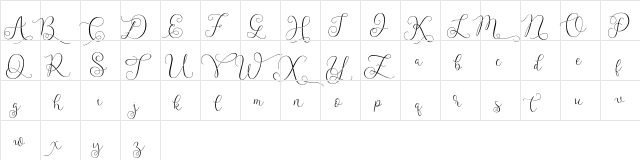
Vaelarmoster Regular
Design Context for Vaelarmoster Typeface
Vaelarmoster is a composed and adaptable typeface that performs quietly and consistently across a wide range of design contexts.